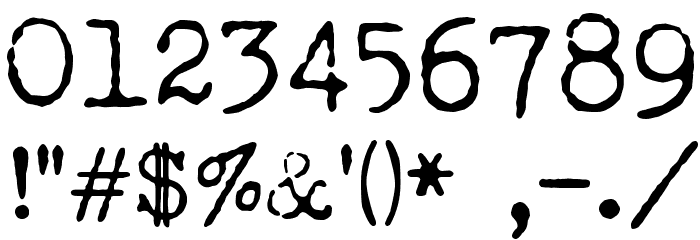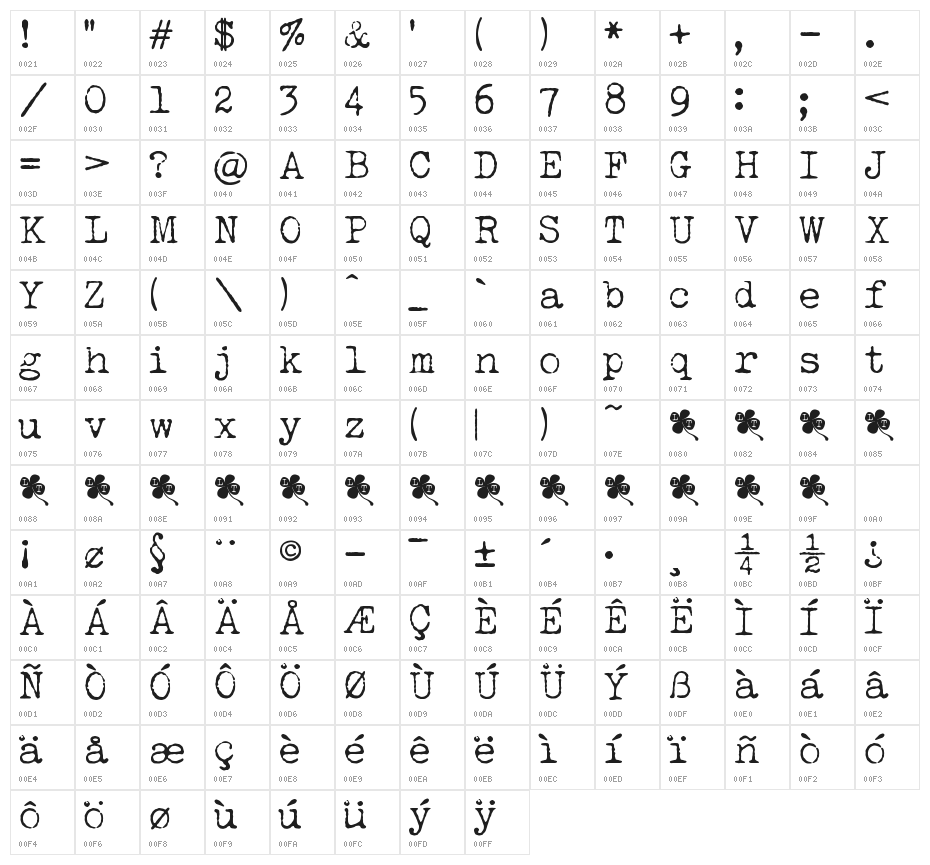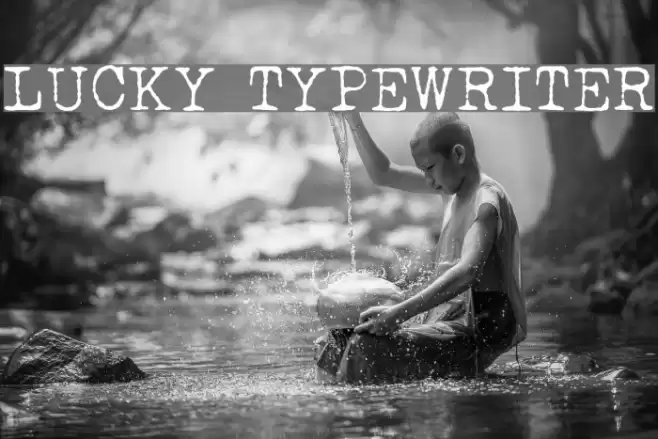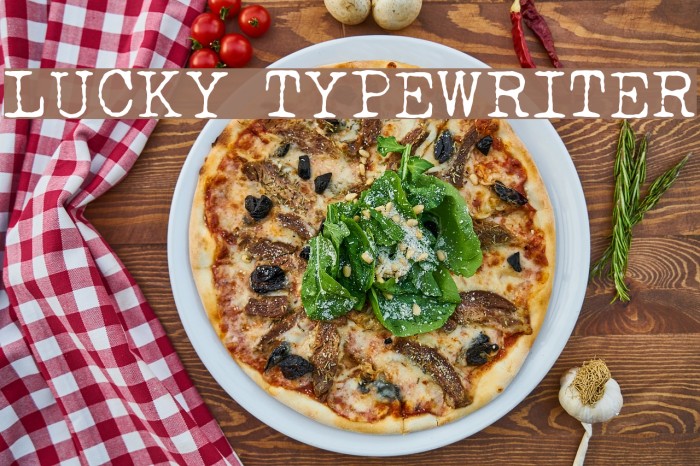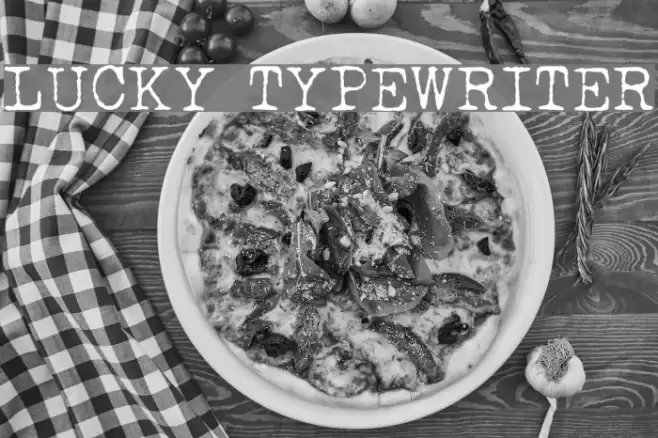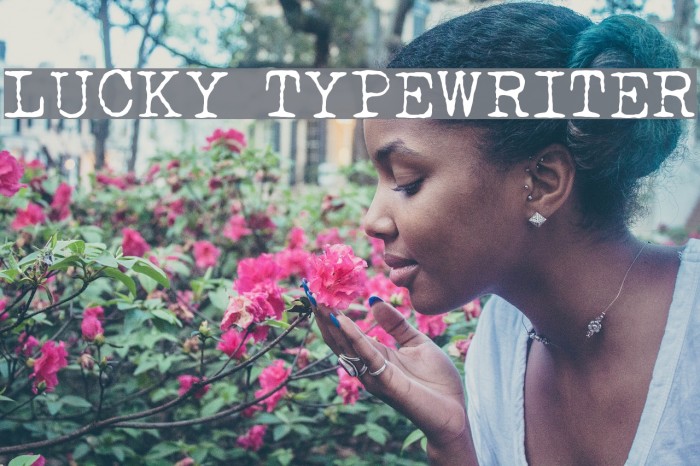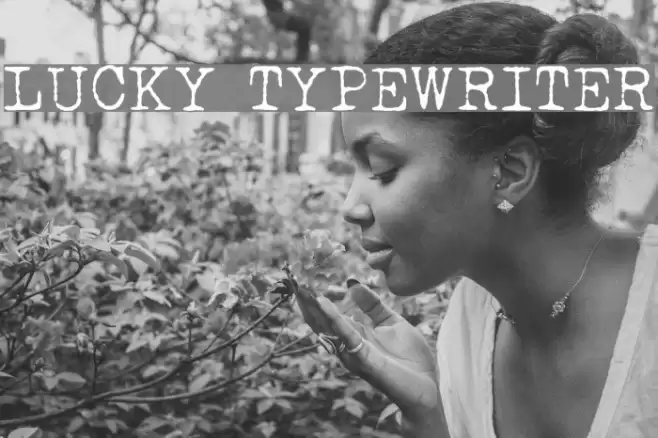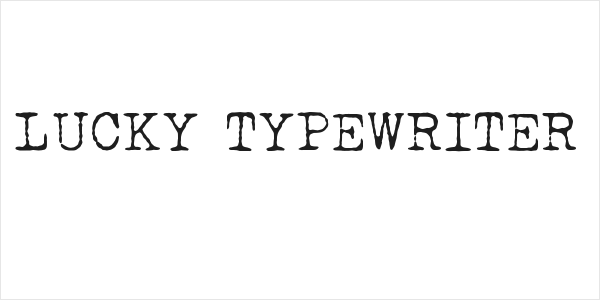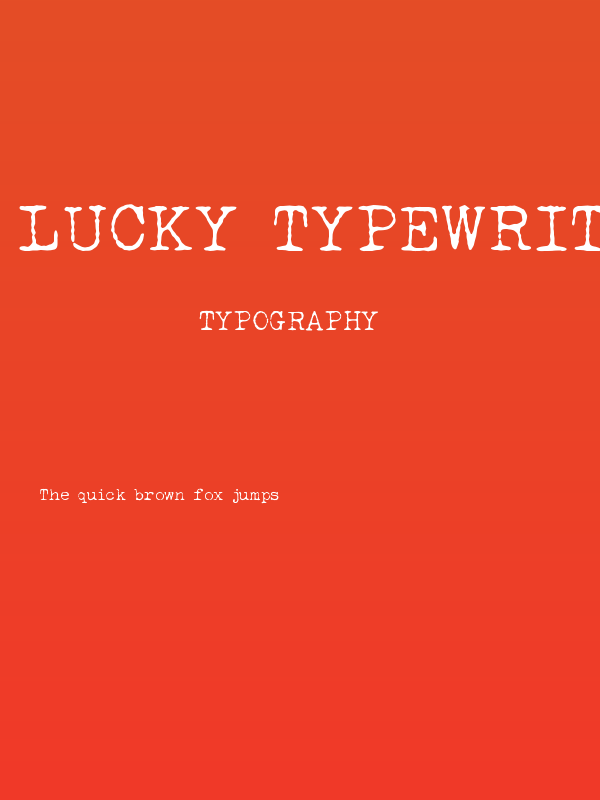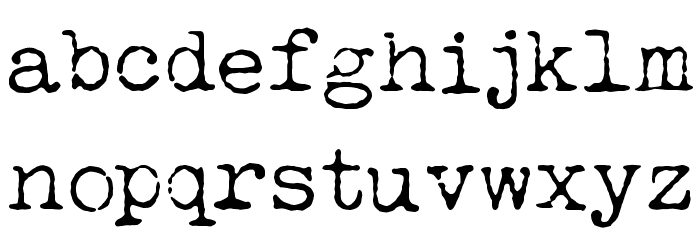
LUCKY TYPEWRITER Font
LUCKY TYPEWRITER Description
This font exudes a vintage typewriter aesthetic, characterized by its monospaced design and slightly irregular, distressed appearance. Each character is distinct, with a rough, textured edge that mimics the look of ink on paper. The uppercase and lowercase letters maintain a consistent height, while the numerals and special characters blend seamlessly into the overall style. This font captures the essence of classic typewriter fonts, making it ideal for projects that require a touch of nostalgia or a retro feel. Its unique charm lies in the imperfections, giving it an authentic, handcrafted look.
| Proposed Projects | Ideal for retro-themed designs, vintage posters, typewriter-inspired branding, and creative writing projects. |